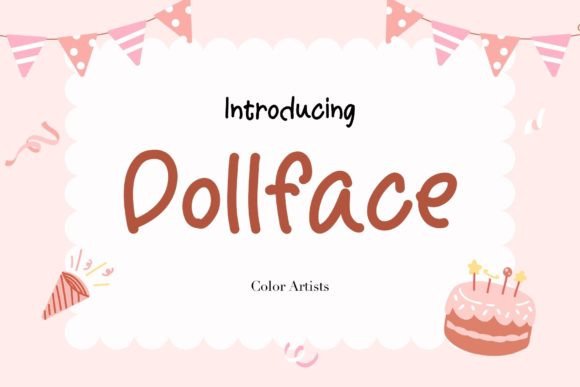
Welcome to the realm of visual enchantment, where letters dance with grace and charm. Introducing Dollface font, a symphony of elegance and sophistication that will transform your creative endeavors into masterpieces. This enchanting script font, crafted by the skilled artisans at MyFontsShop, is a true testament to the power of beauty in design.
With its delicate letterforms and graceful curves, Dollface font possesses an irresistible allure that captivates the senses. Each character is a work of art, meticulously crafted to evoke a sense of femininity and elegance. Whether you're weaving words into wedding invitations, creating fashion magazines that exude glamour, or designing beauty branding that radiates sophistication, Dollface font will elevate your creations to new heights of allure.
Step into a world where words come alive, where each letter tells a story of grace and charm. Dollface font is the perfect companion for your creative journey, whether you're a seasoned designer or just starting to explore the world of typography. Its versatility knows no bounds, adapting seamlessly to a wide range of projects and styles.
Dollface font is the ultimate choice for those seeking to add a touch of enchantment to their designs. Its captivating beauty will leave a lasting impression on your audience, creating a sense of wonder and admiration. Embrace the magic of Dollface font today and embark on a creative journey that will redefine the boundaries of elegance and charm.
Experience the transformative power of Dollface font and witness your designs blossom into works of art. Let your imagination soar as you explore the endless possibilities this exquisite font has to offer. The world of beauty awaits – embrace it with Dollface font.